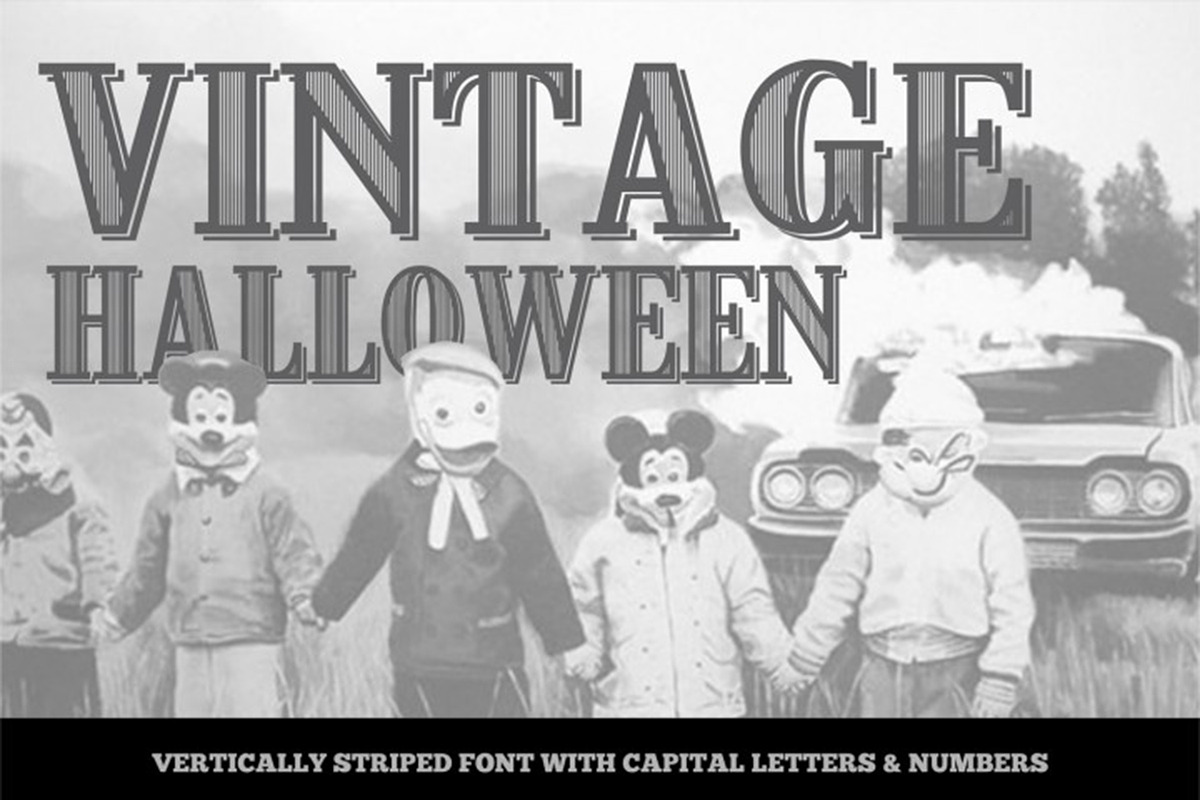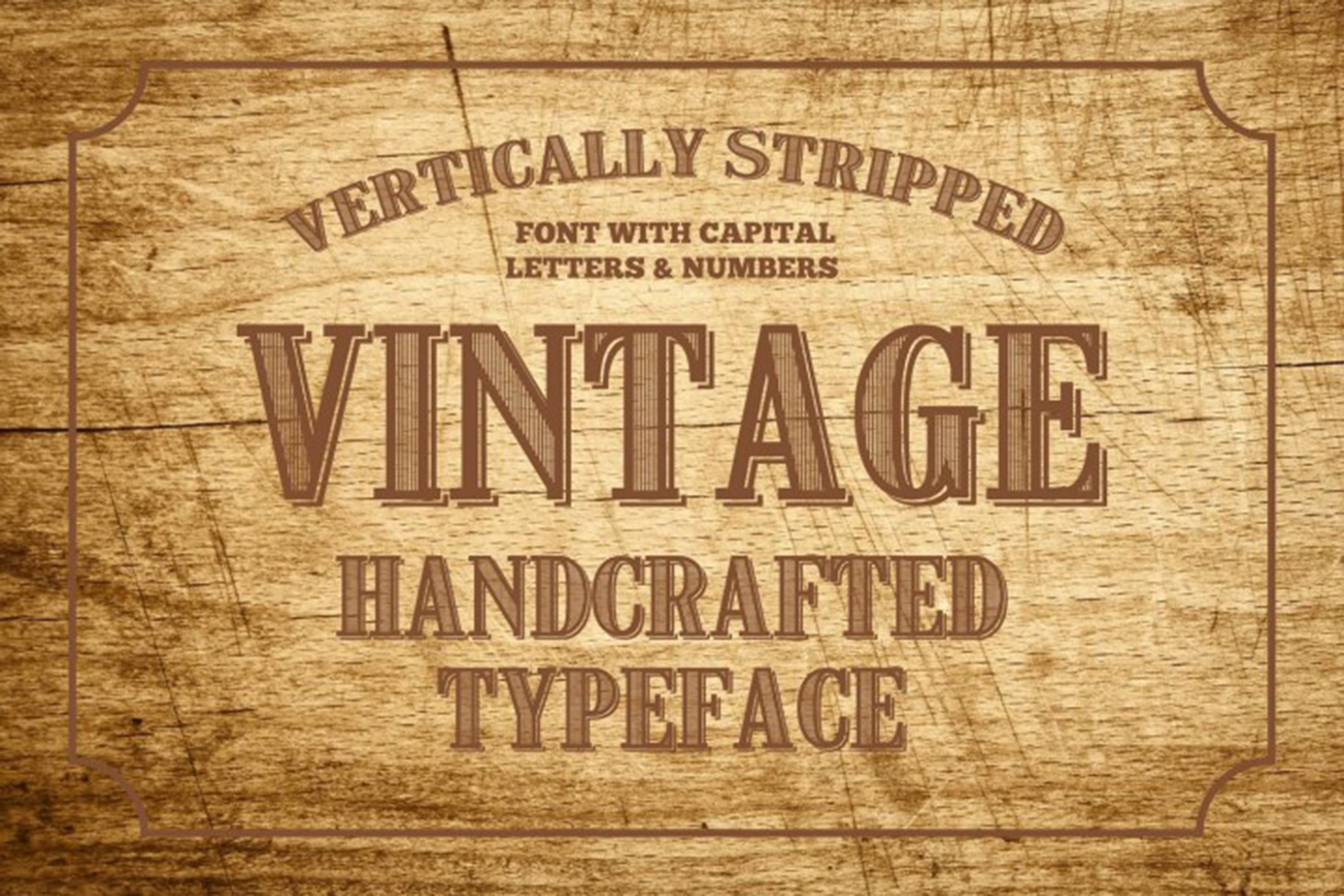
Vertically Striped Vintage Typeface
This stylish and attractively nice looking font is for real designers who know the value of their work and like to achieve the goals in timely and effectively manner. Great mixture of usage of this font in enormously and nearly impossible to list. Creative people will have their decorations on postcard looking very stunning and pretty with this typeface. You can create the name tags and badges, notebooks and books designs, creative booklets and advertisement banners and etc.